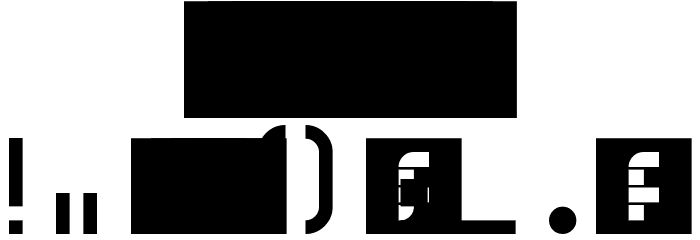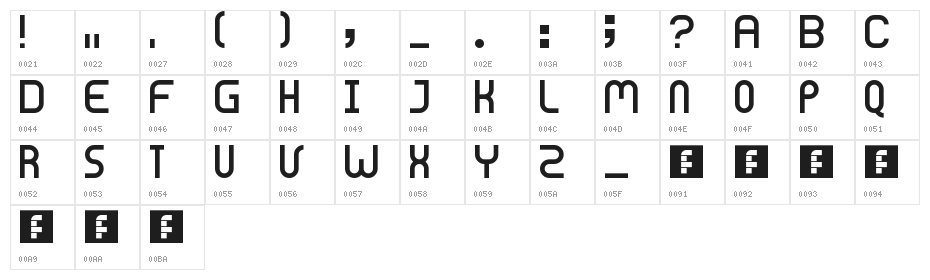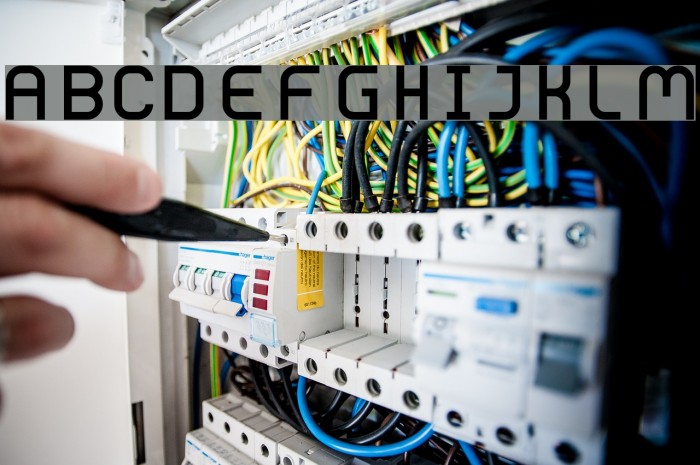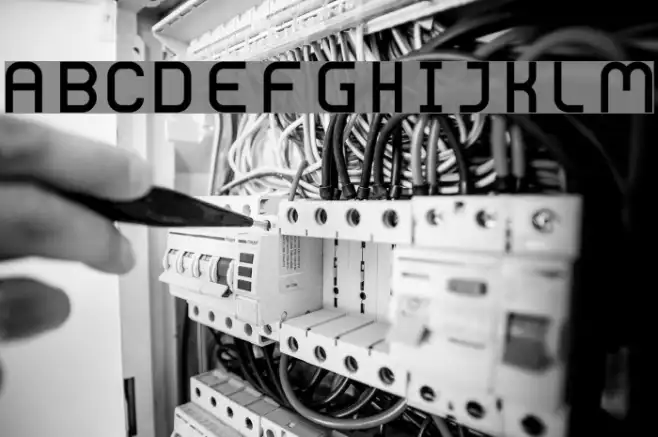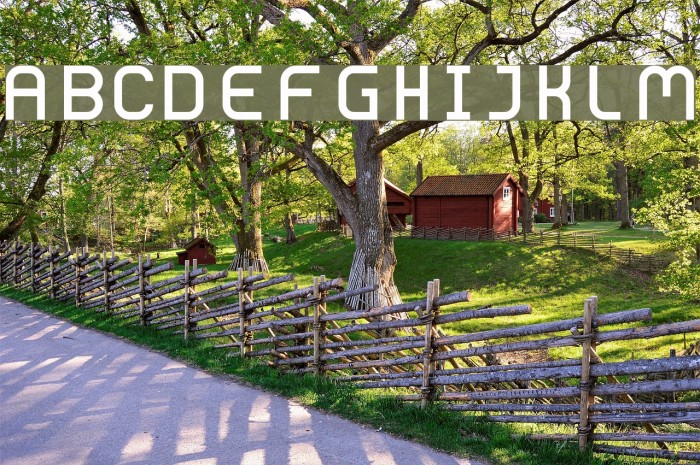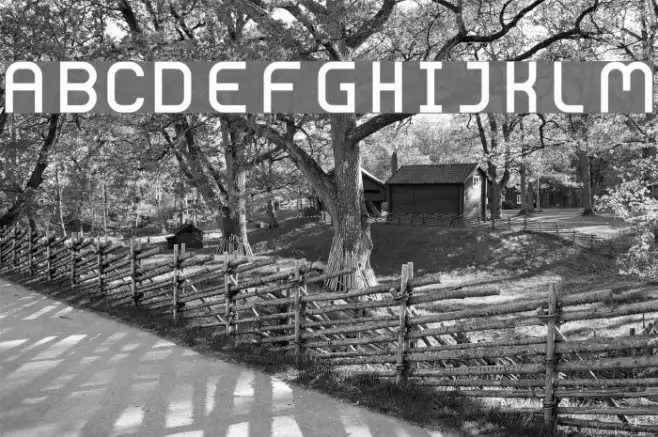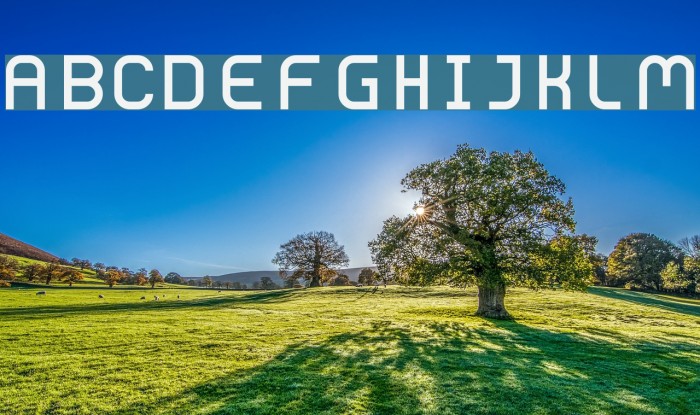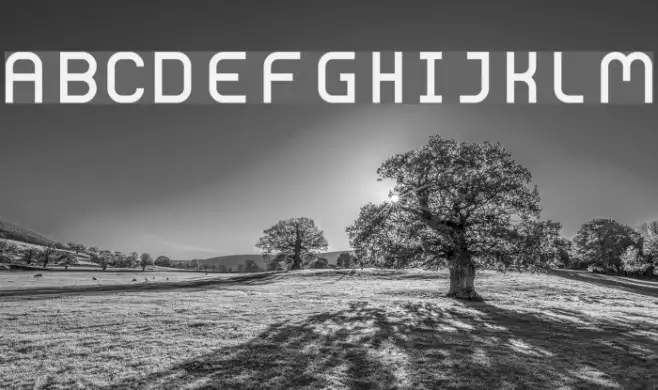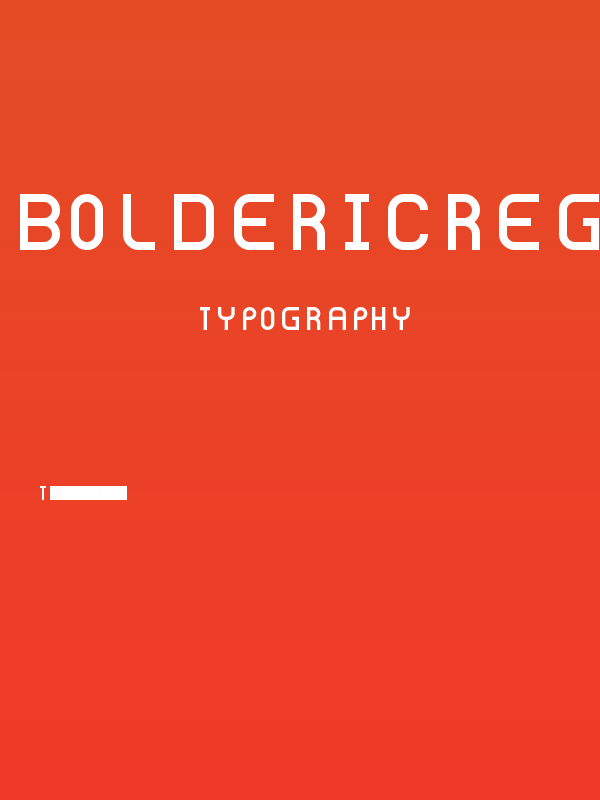
Bolderic Regular Font
Bolderic Regular Description
This font features a modern, geometric design with clean lines and a uniform structure. The uppercase letters are bold and slightly rounded, giving a futuristic and tech-inspired feel. The lowercase letters maintain the same geometric style, ensuring consistency across the typeface. The numerals are clear and legible, matching the overall aesthetic. Special characters are designed to complement the letterforms, making the font versatile for various uses. The uniform stroke width throughout the characters provides a cohesive look, suitable for digital and print media.
| Use Case | Headlines, Logos, Digital Interfaces |
| Proposed Projects | Ideal for technology branding, digital interfaces, and modern advertising campaigns. |